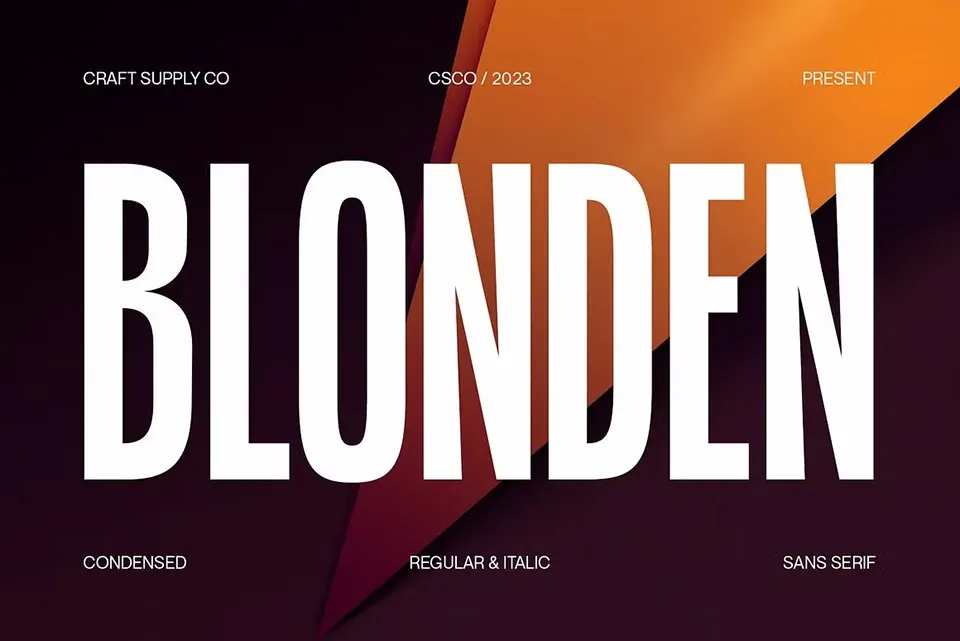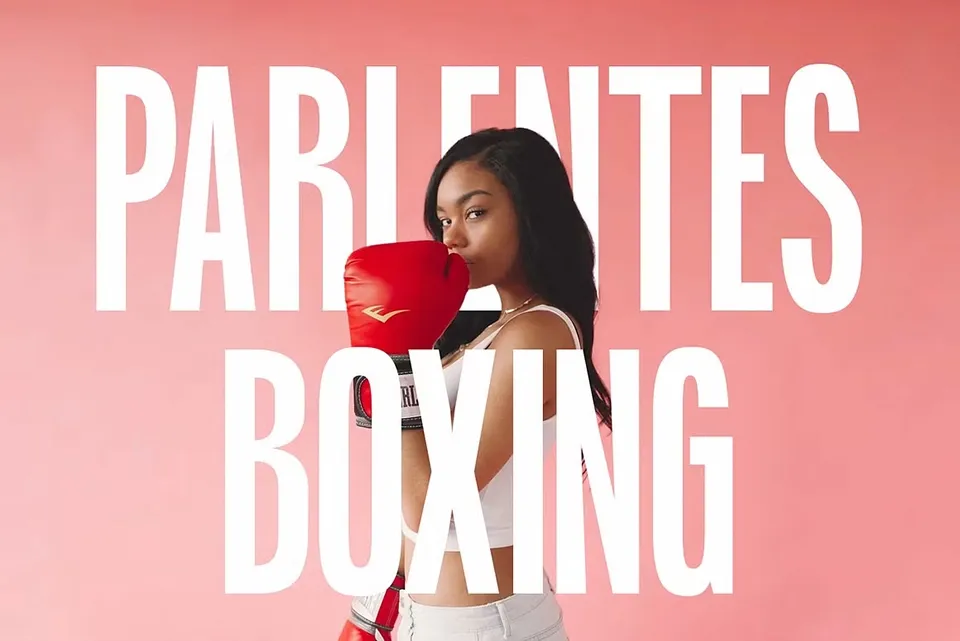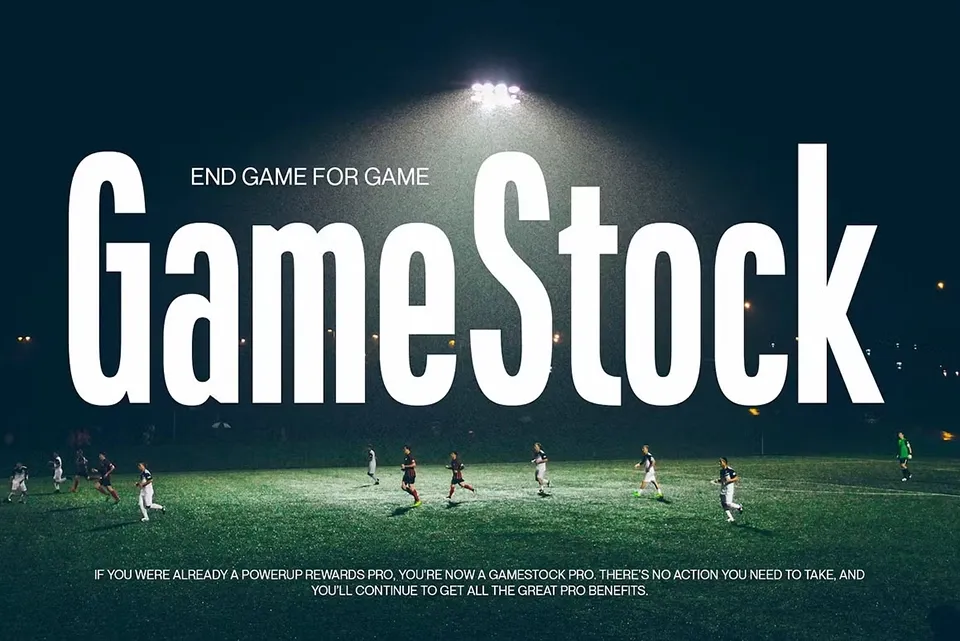
Blonden Font
Blonden Font is a condensed sans-serif font that fuses modernity with streamlined efficiency. Blending style and compactness, Blonden brings a dynamic edge to any design. Its sleek, condensed form makes it perfect for bold statements in tight spaces, ideal for headlines, branding, posters, and editorial use.